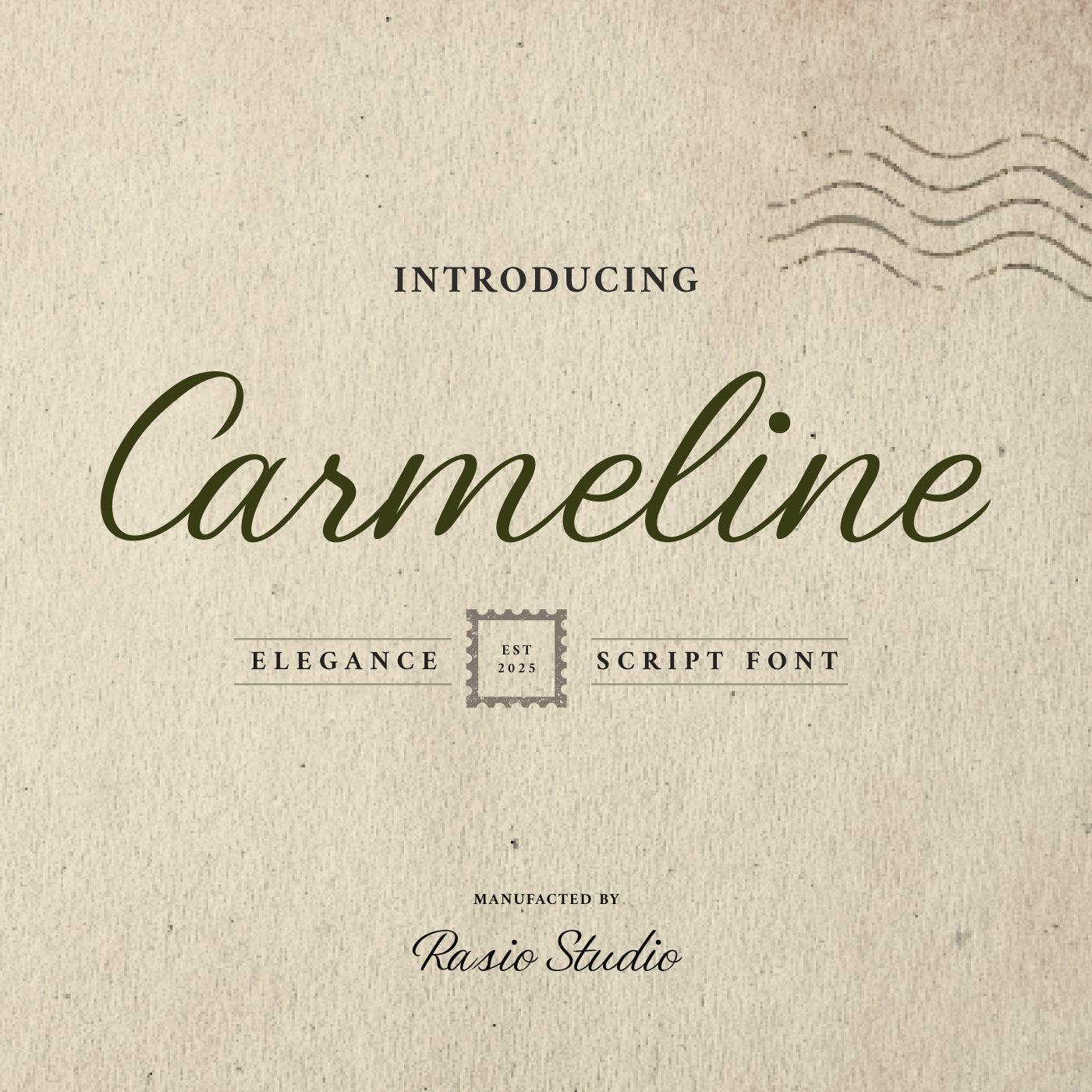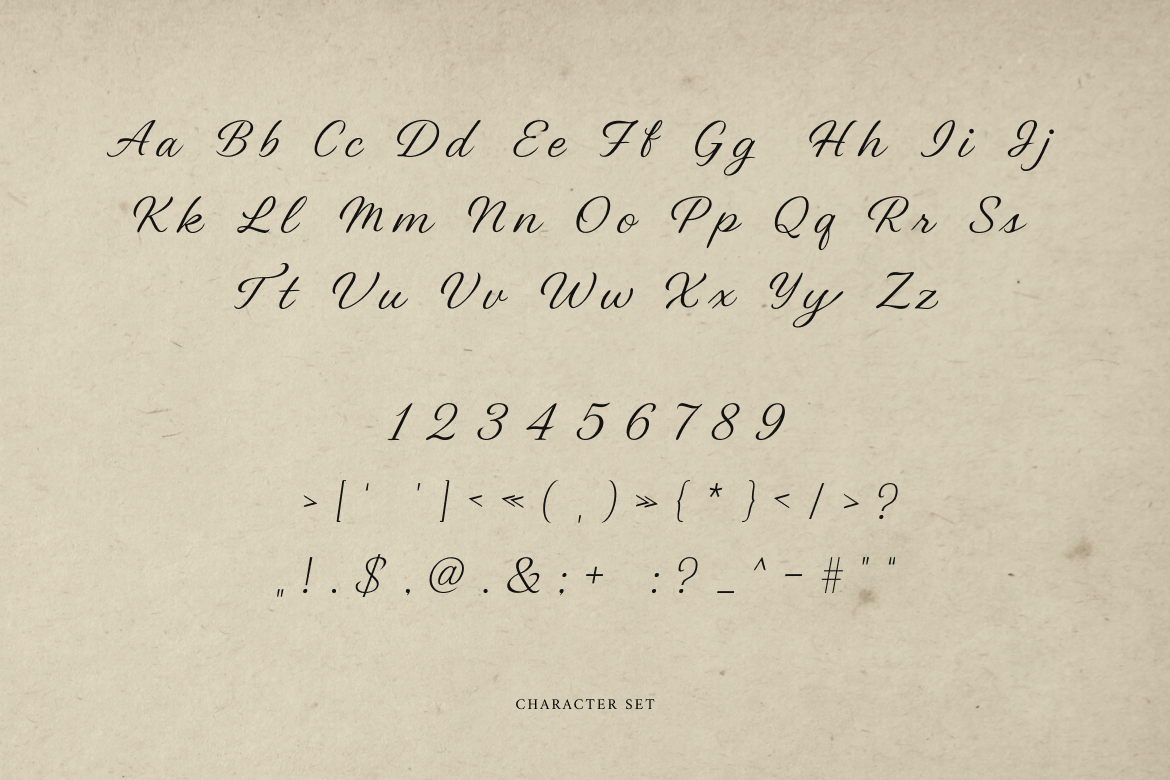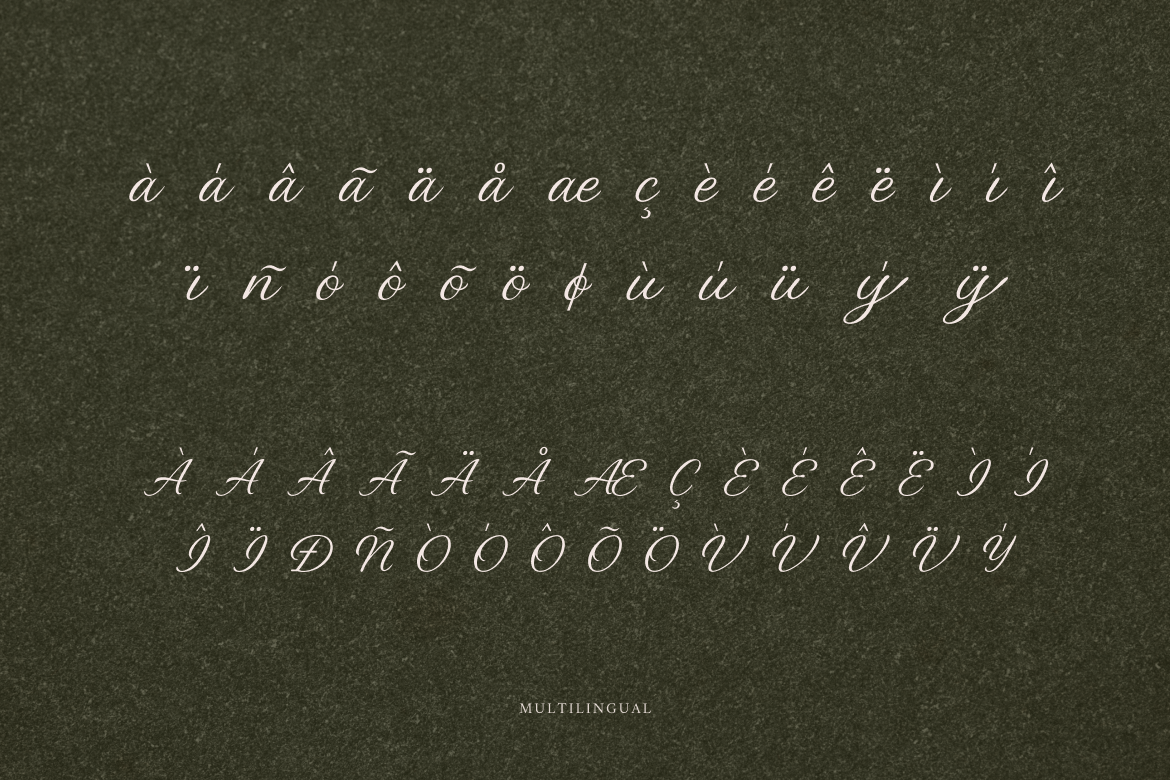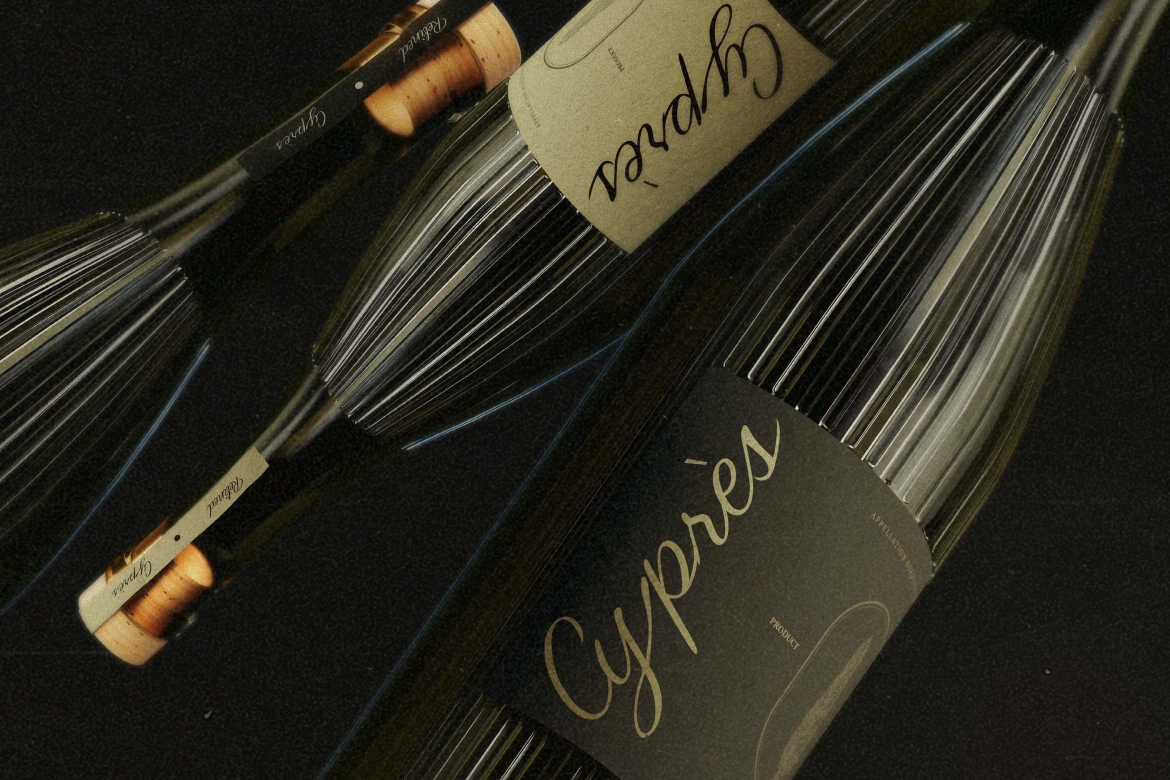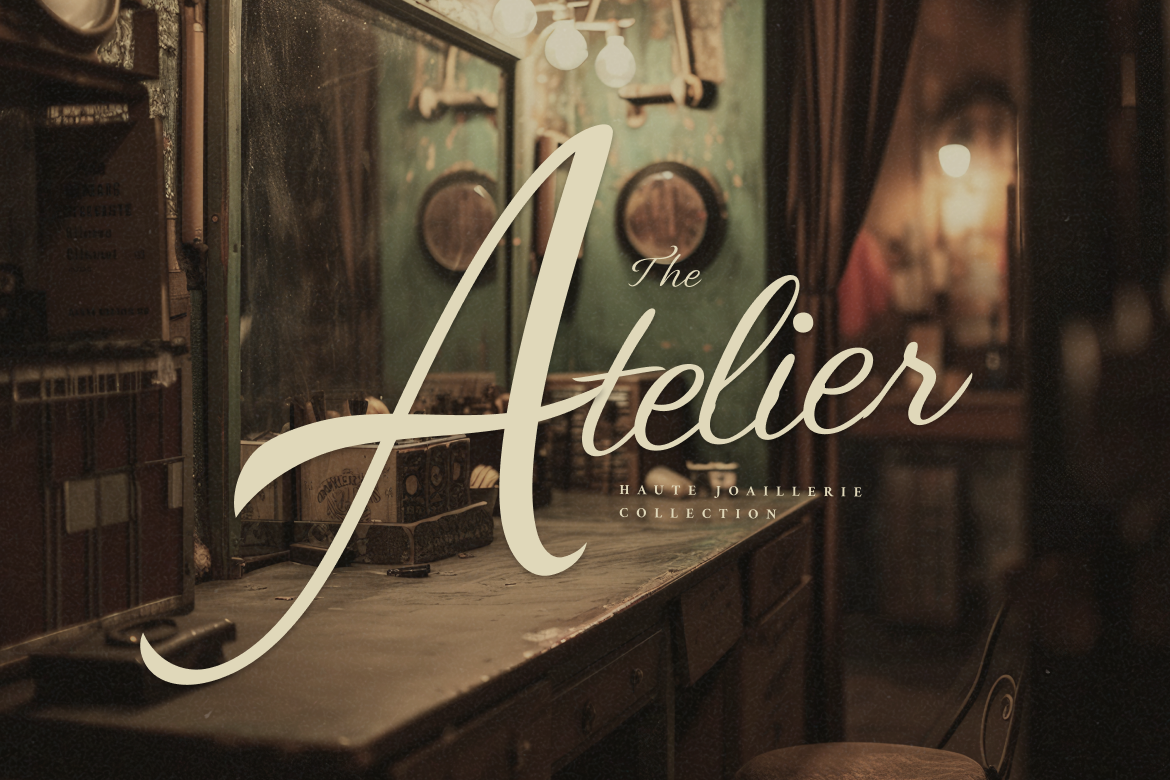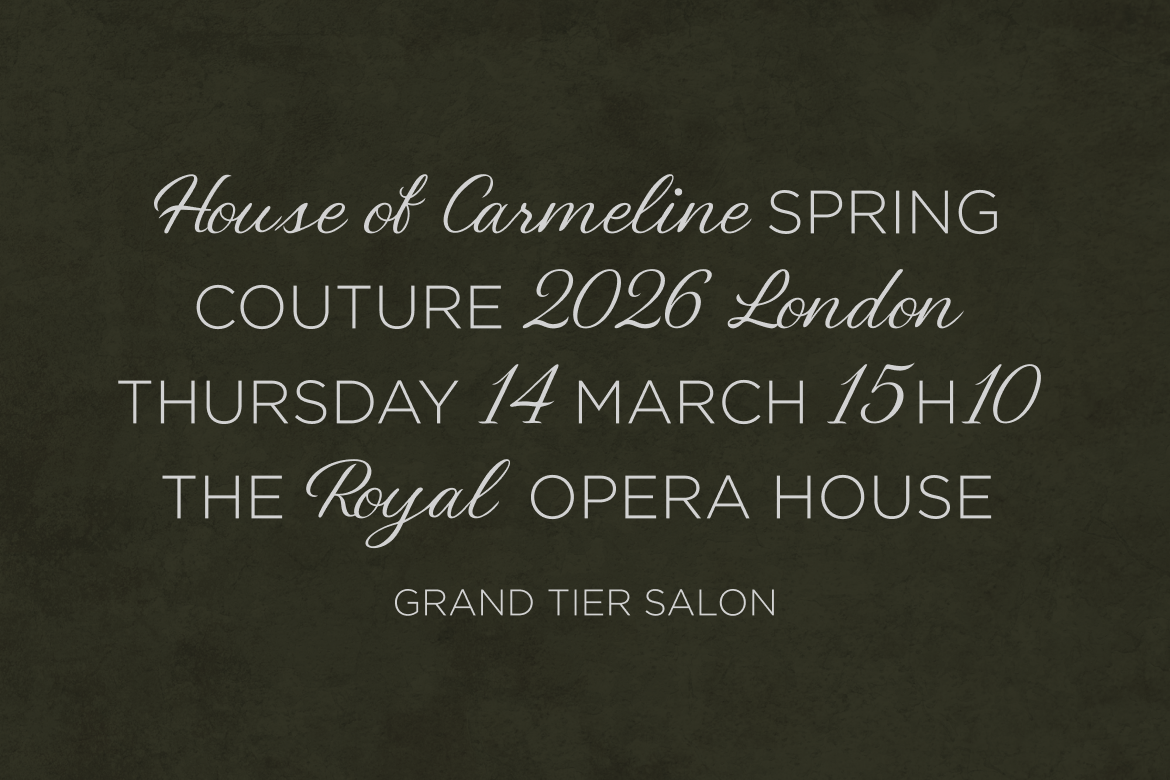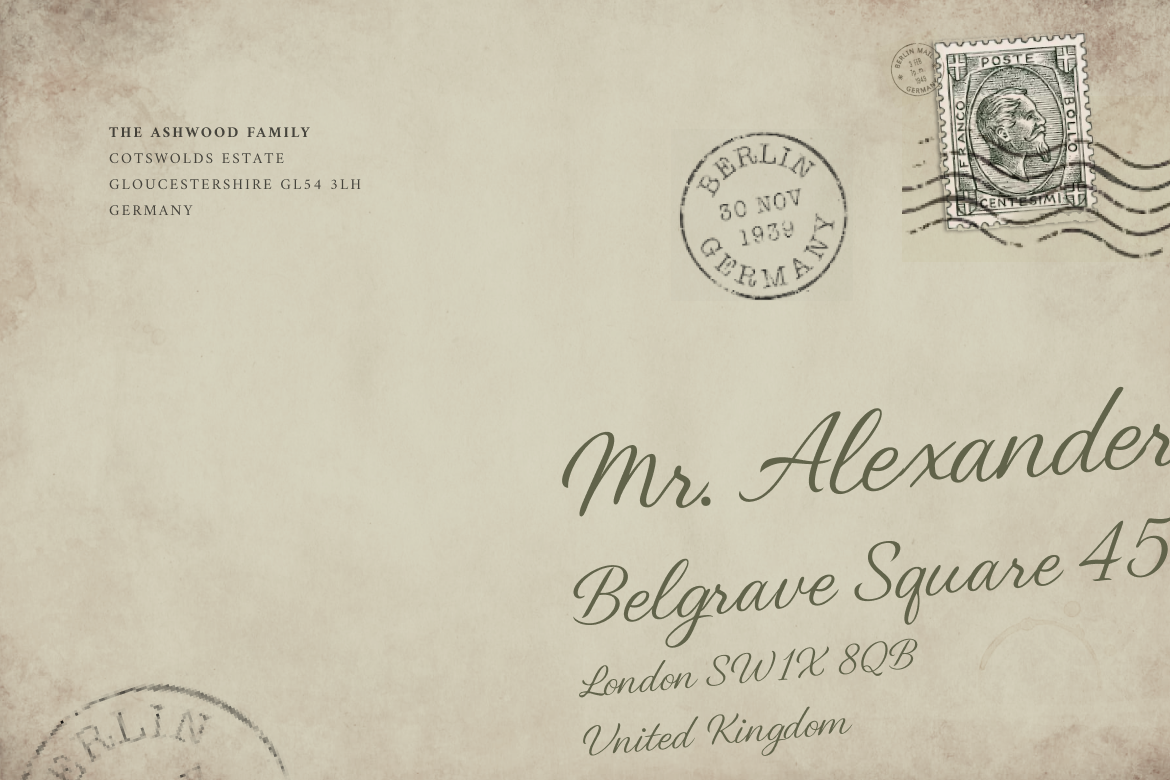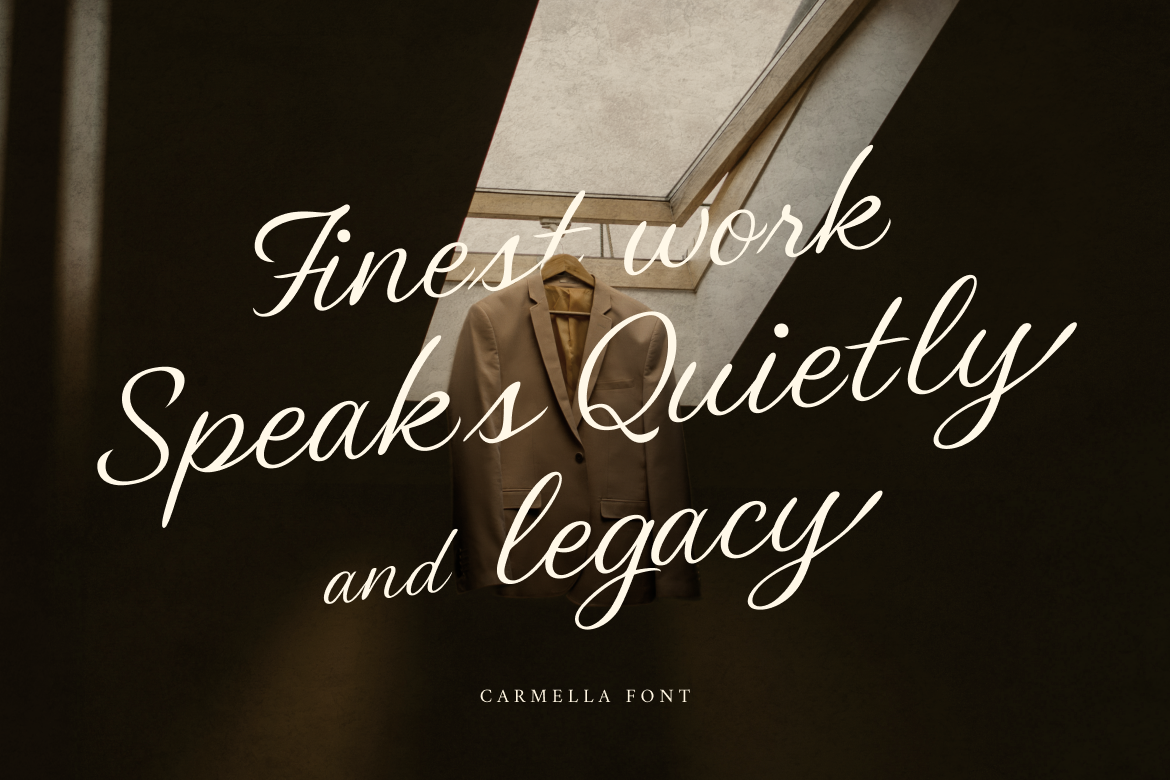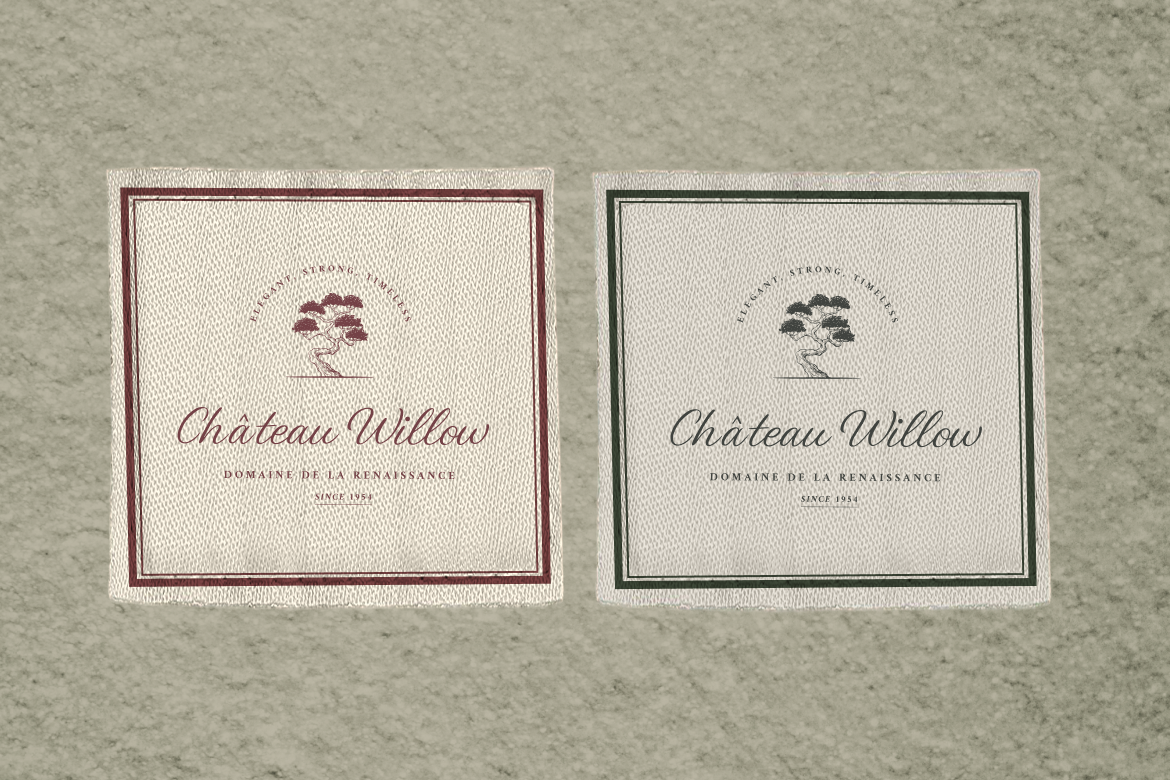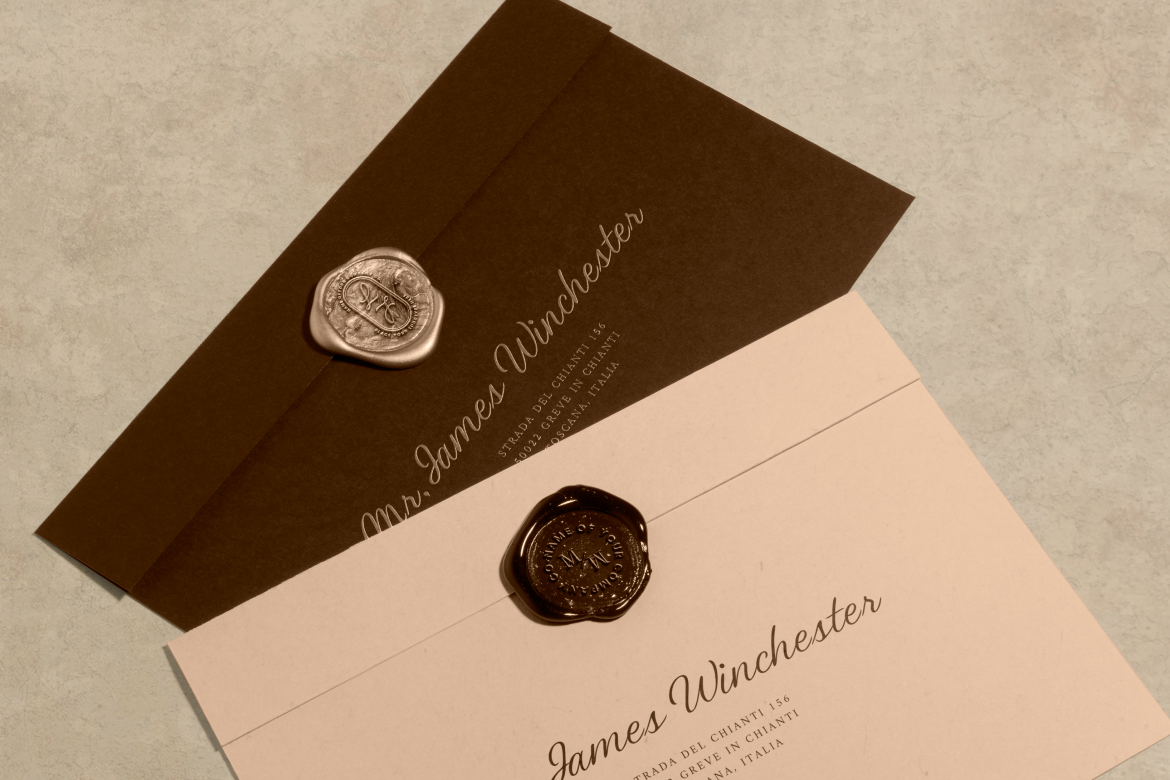
Carmeline Elegance Script Font
Carmeline Elegance Script Font is a refined handwritten typeface featuring smooth flowing strokes, graceful curves, and a timeless signature-inspired appearance. Designed with elegant letterforms and natural handwriting rhythm, this font delivers a sophisticated aesthetic suitable for premium branding and stylish typography. The font includes uppercase and lowercase characters, numerals, punctuation, multilingual support, and carefully crafted ligatures for a seamless handwritten look.